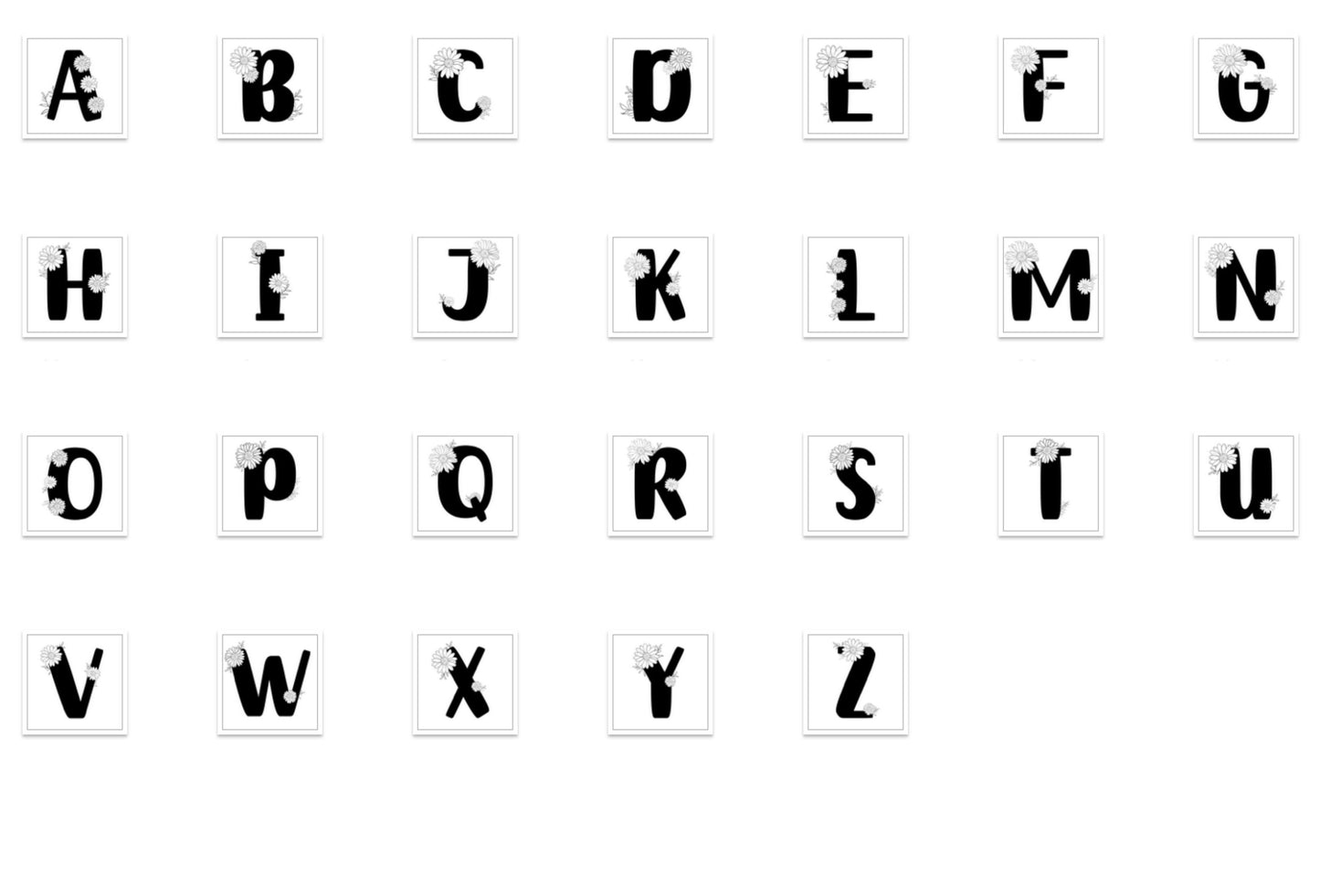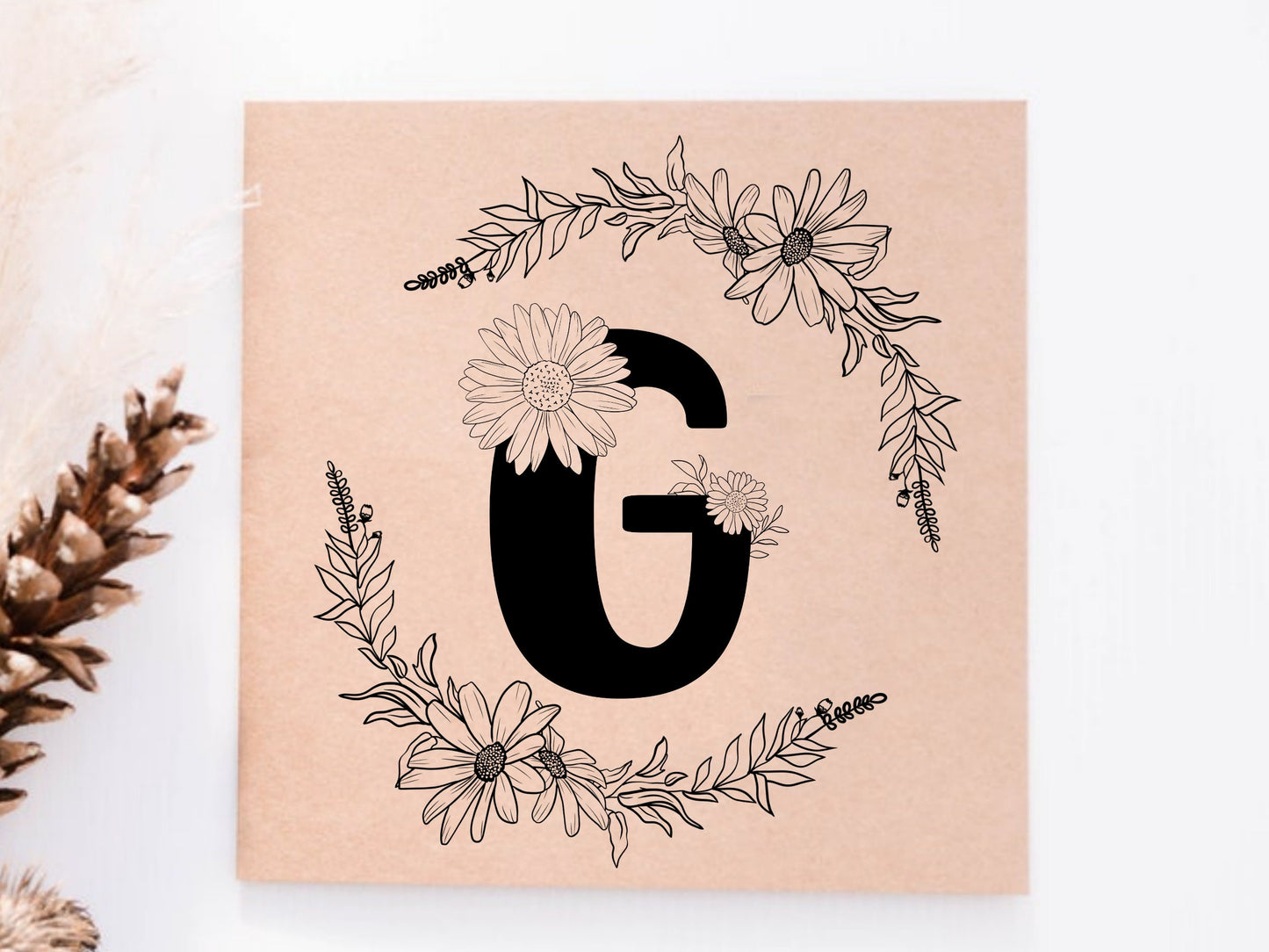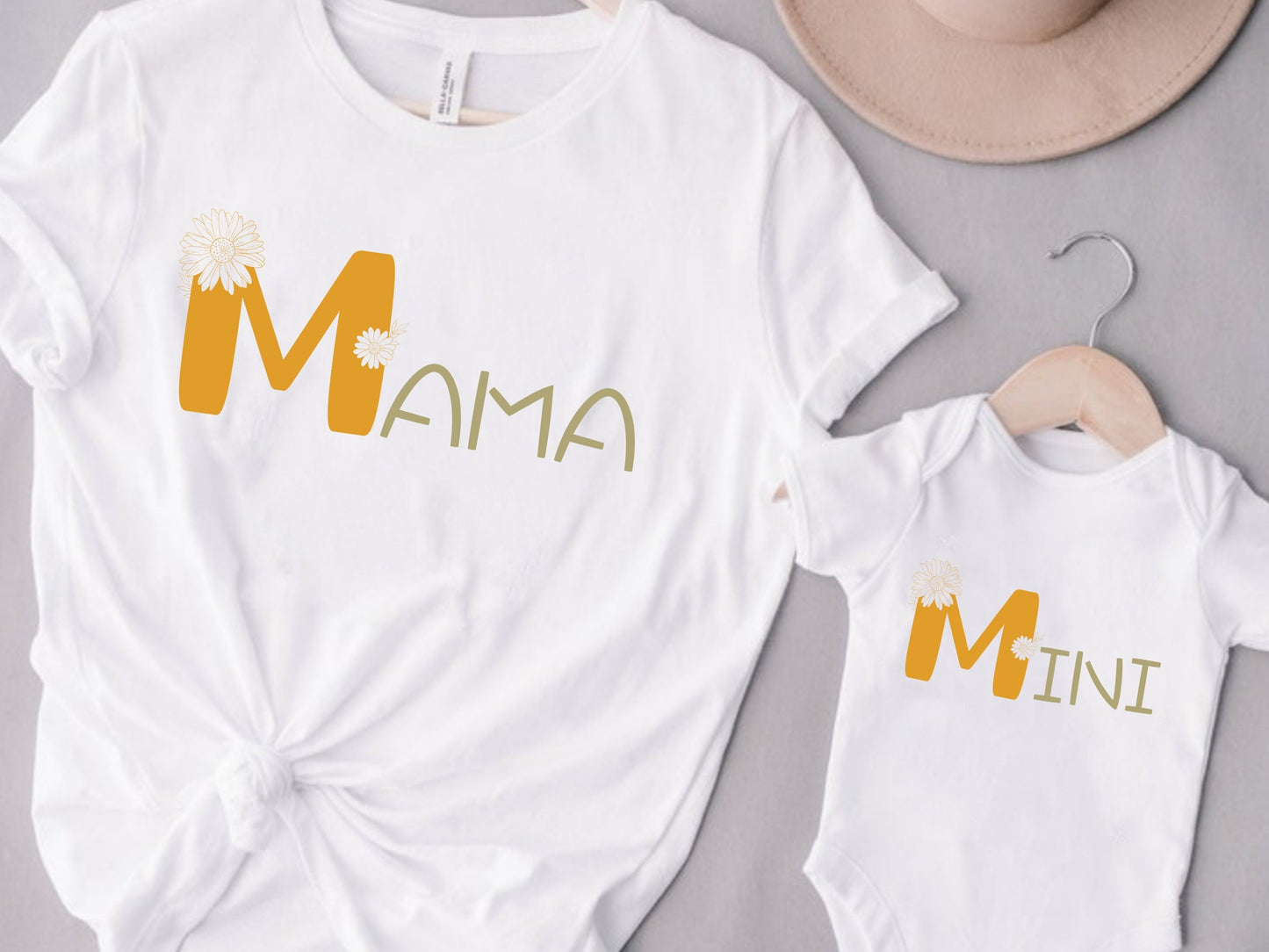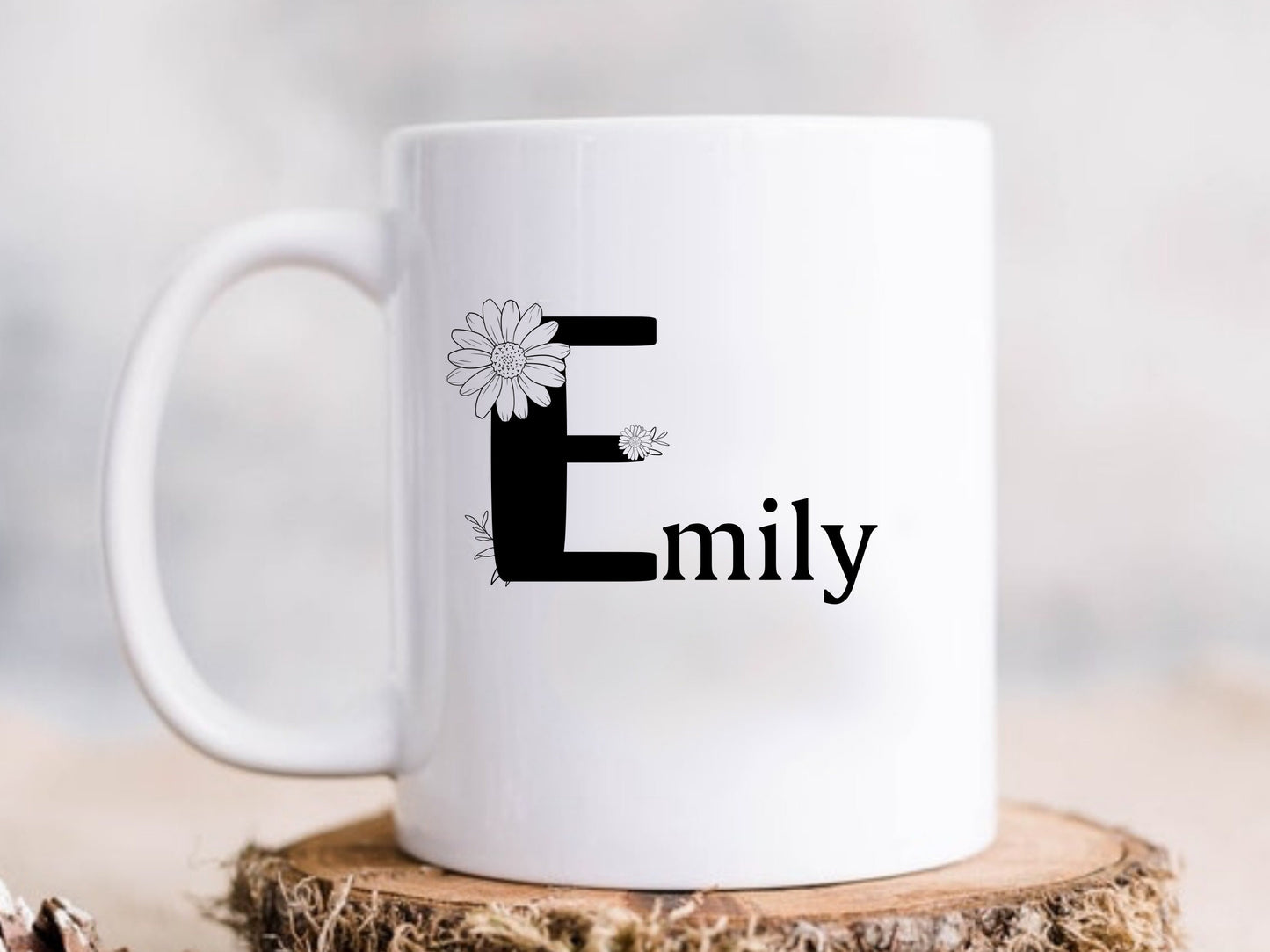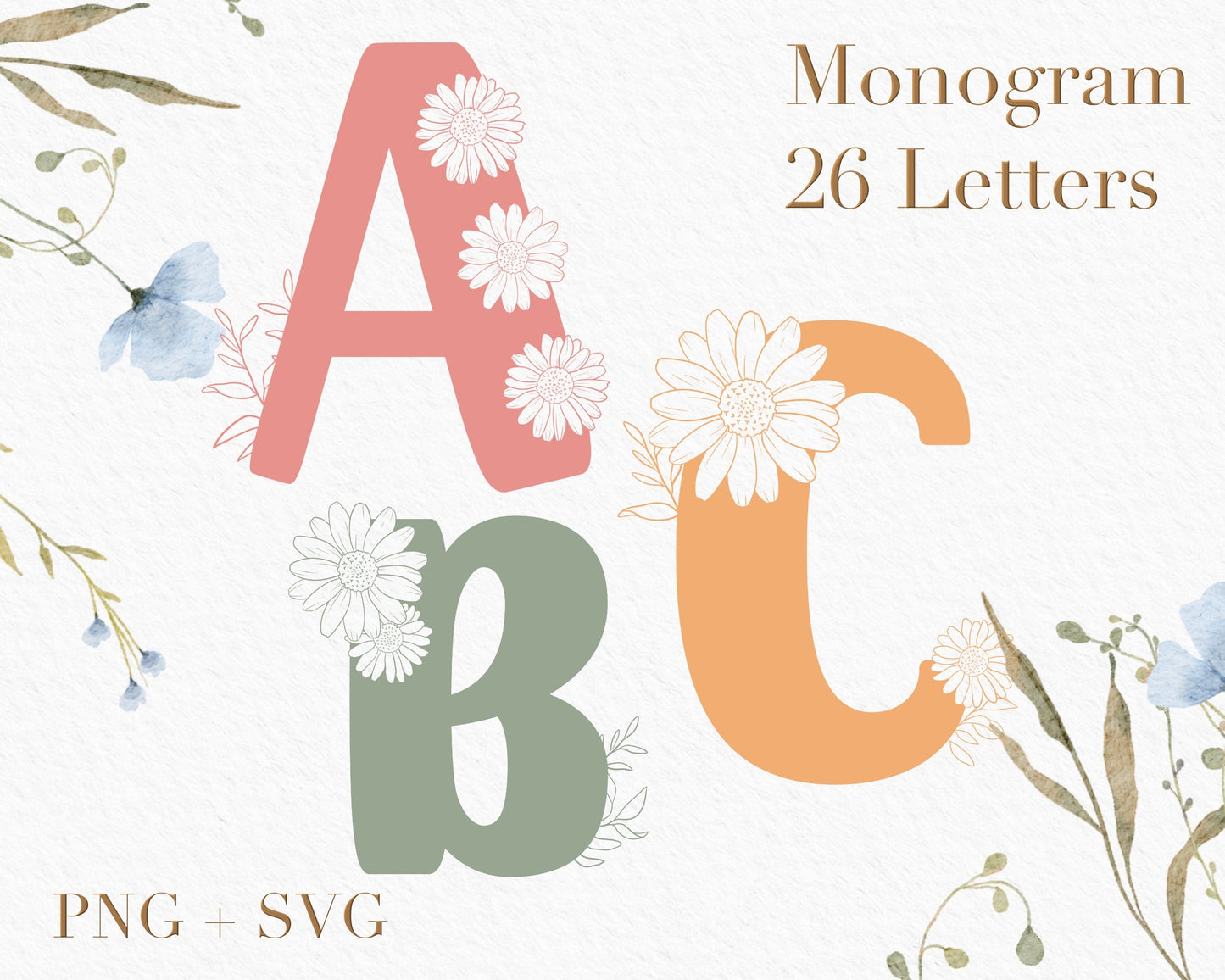
Daisy Floral Monogram Alphabet Clipart SVG
26 individual daisy flower letters/ monogram/ alphabets for instant download, includes SVG and PNG file types(high resolution outline art and silhouette, 300 dpi). Easy to download and edit for your projects, such as banners, tapestry, Christmas ornament, keepsake, wedding decor & invitation, t-shirts, mugs, bags, wall decor, cards and POD products...etc. Those files are compatible with Canva, Cricut, Illustrator, photoshop and other software, cut files can be used for vinyl, engrave and prints, turning your designs into unique creations for personal and commercial use.